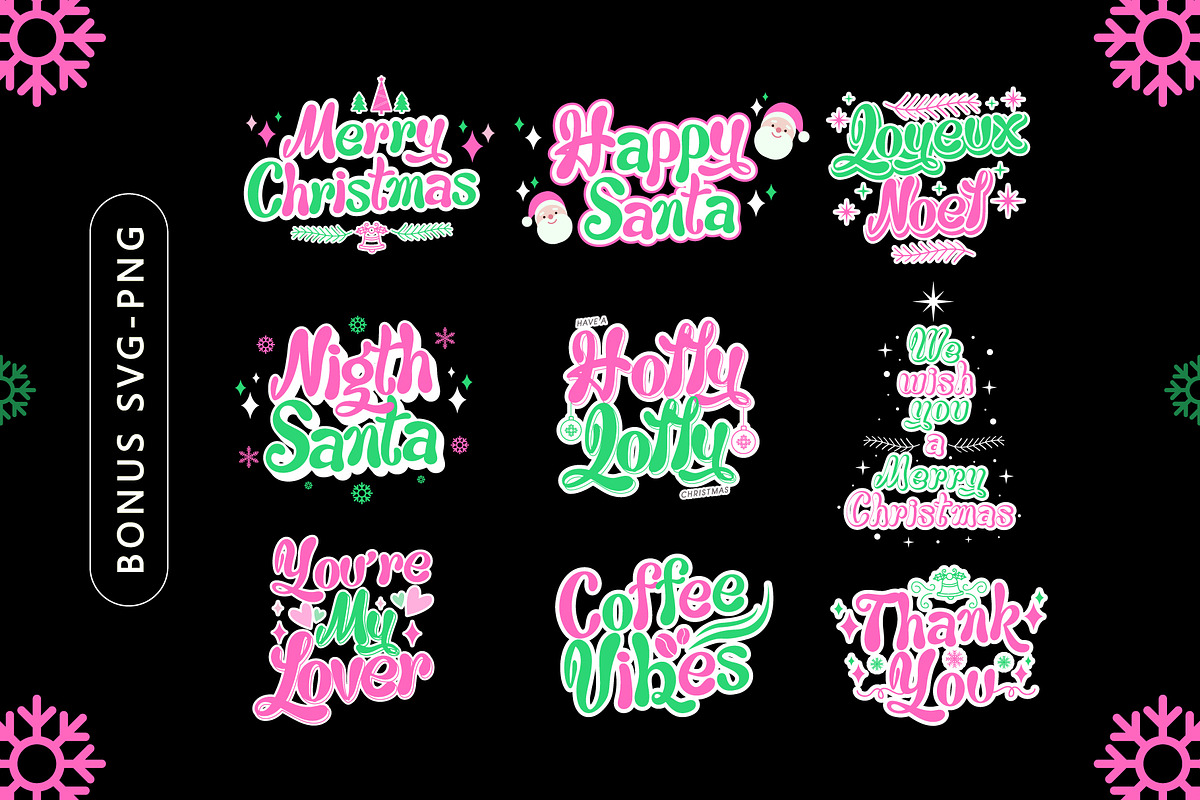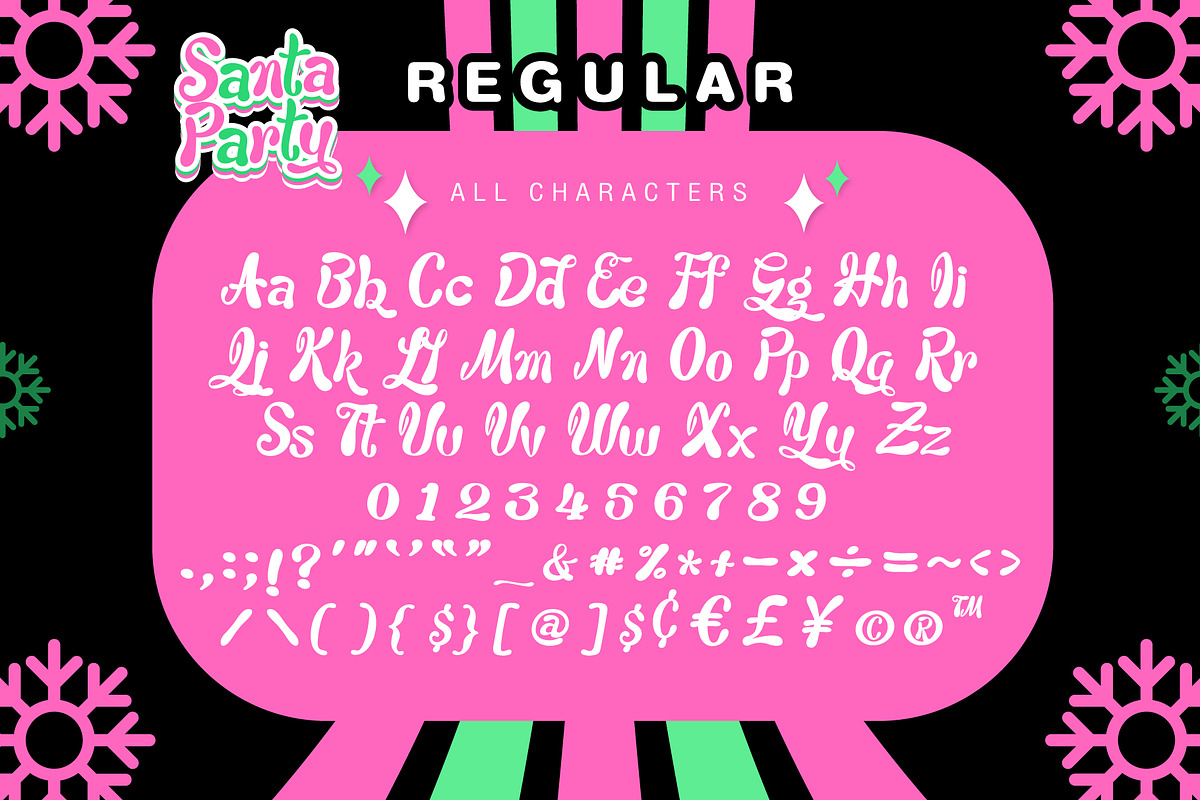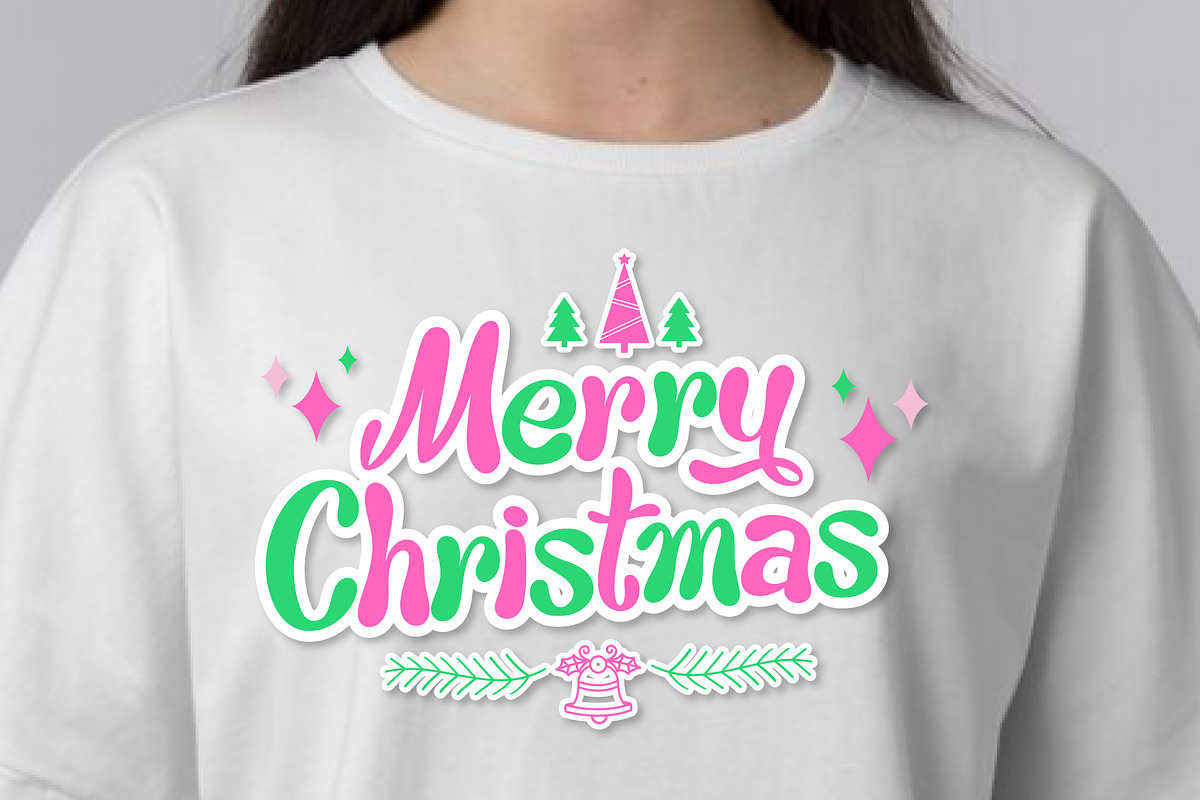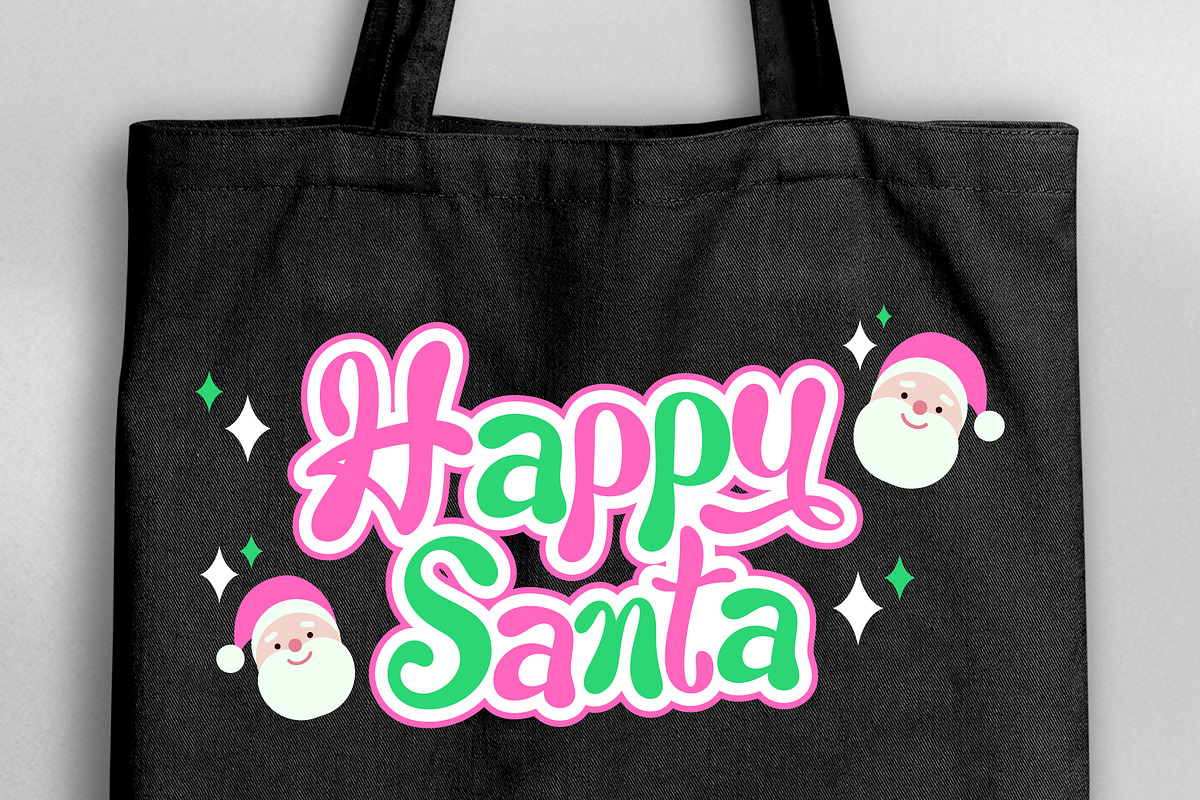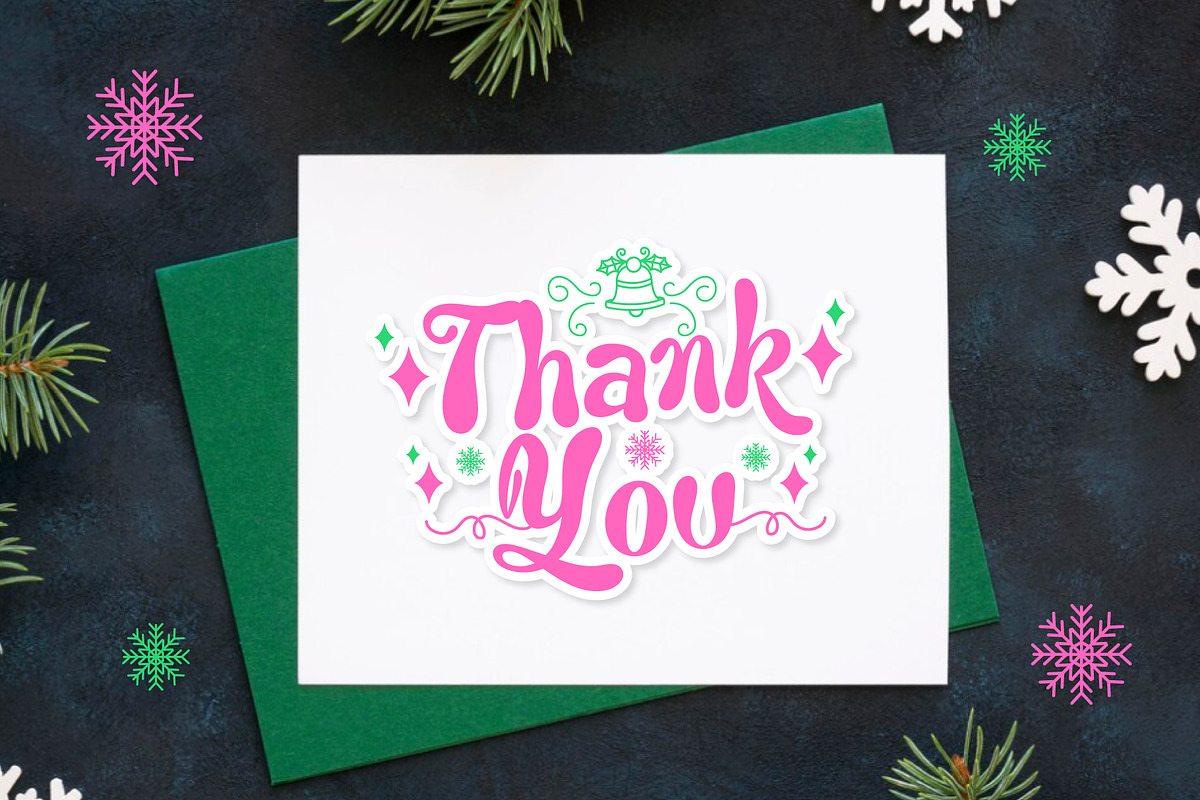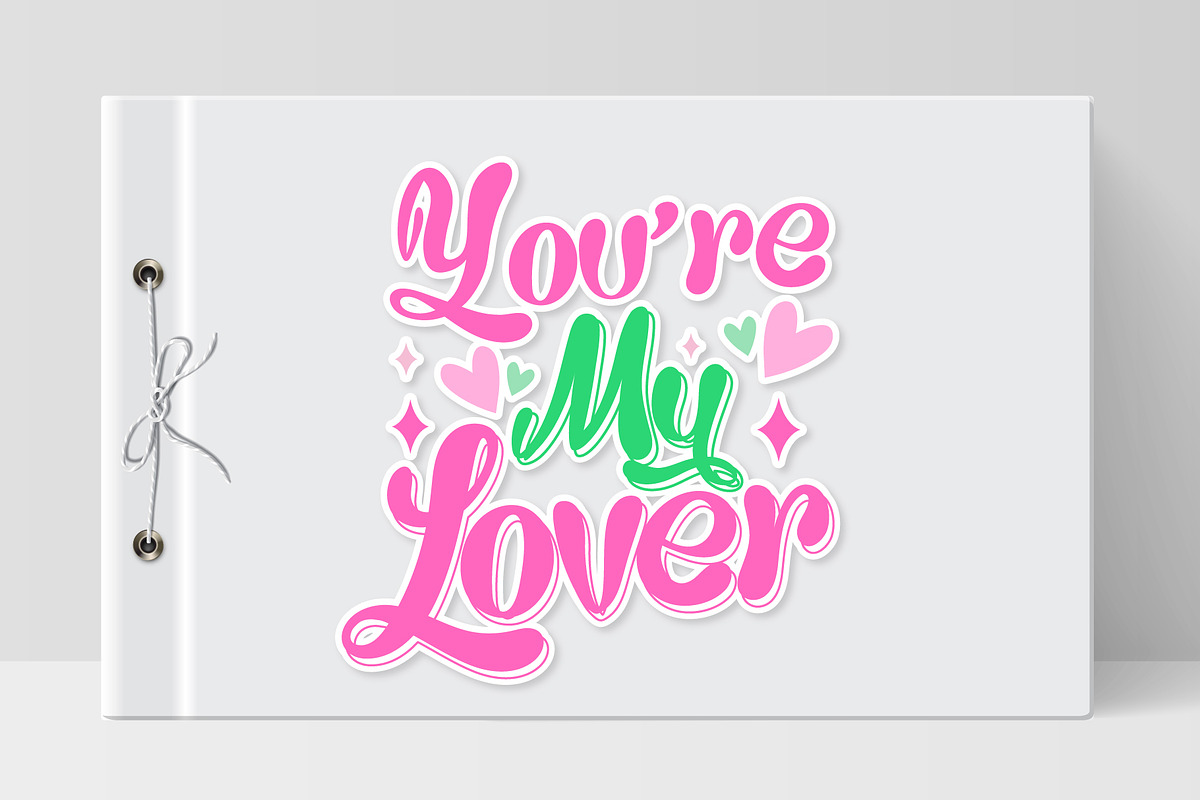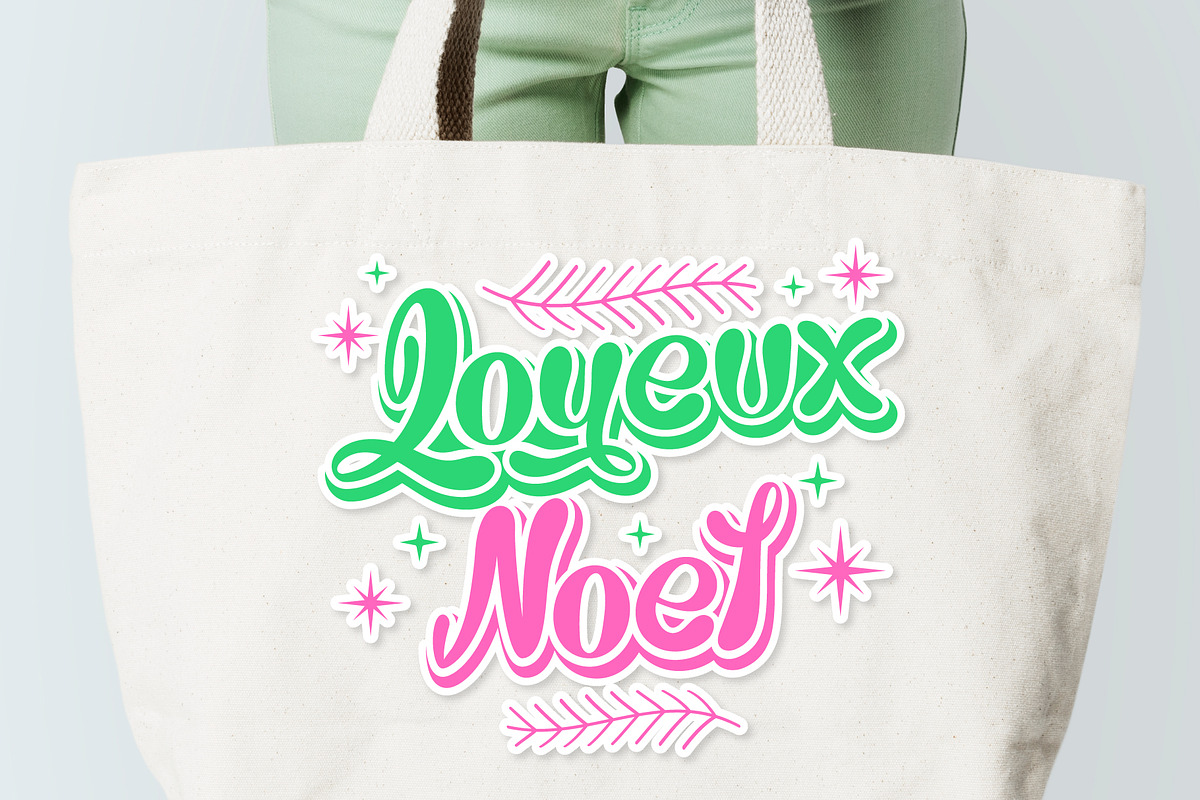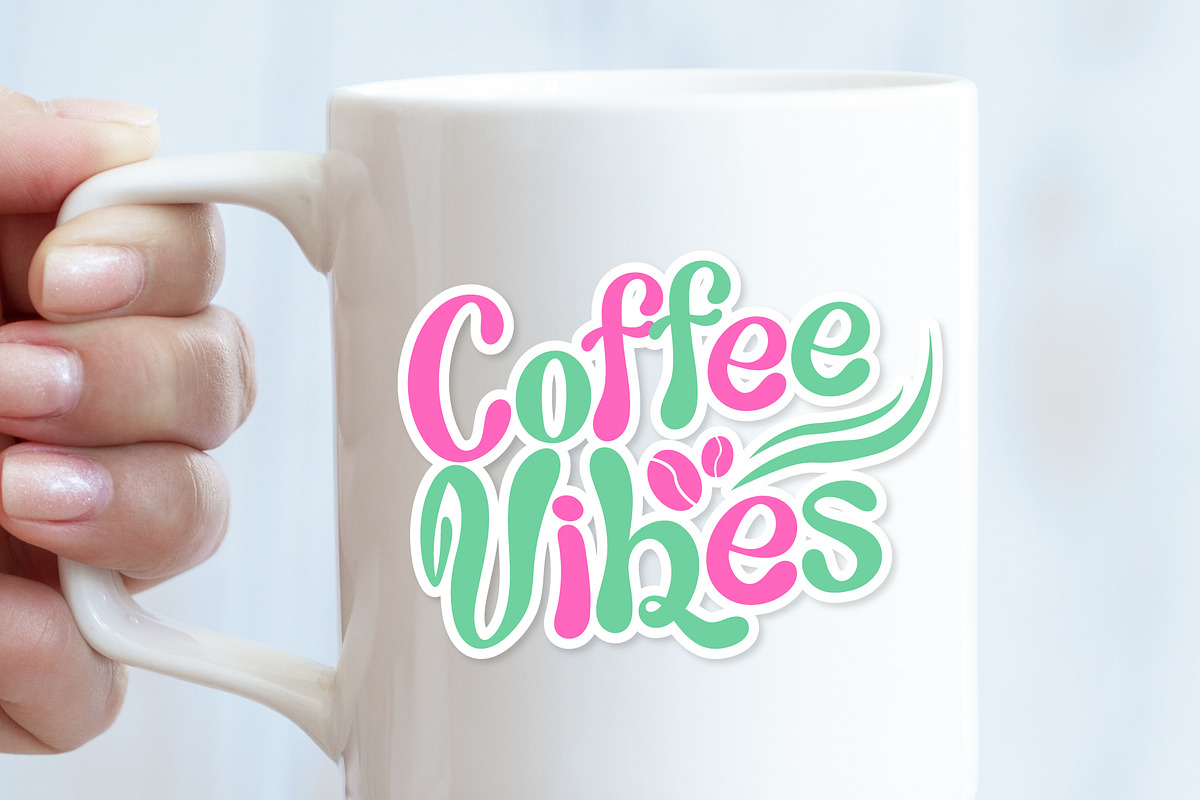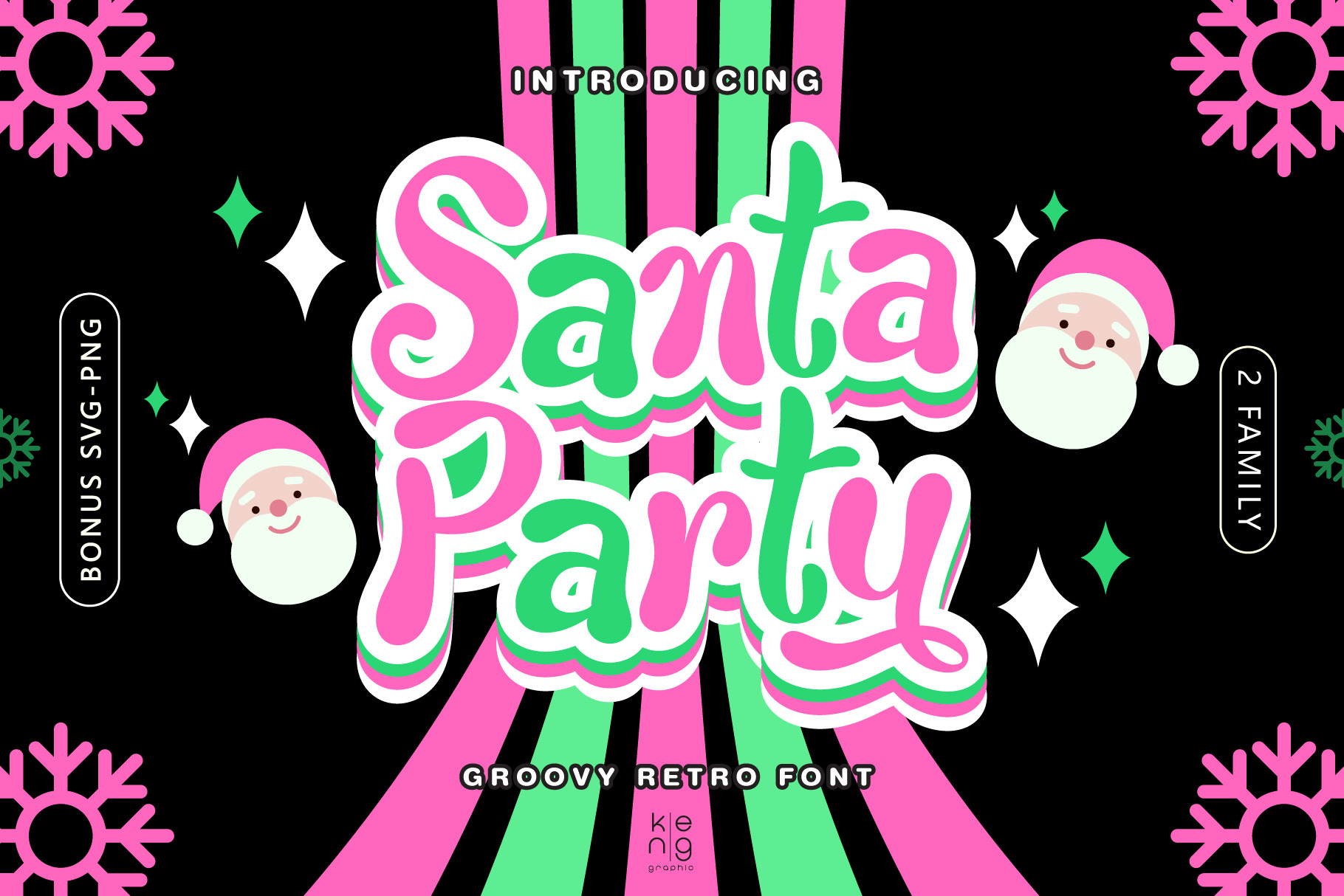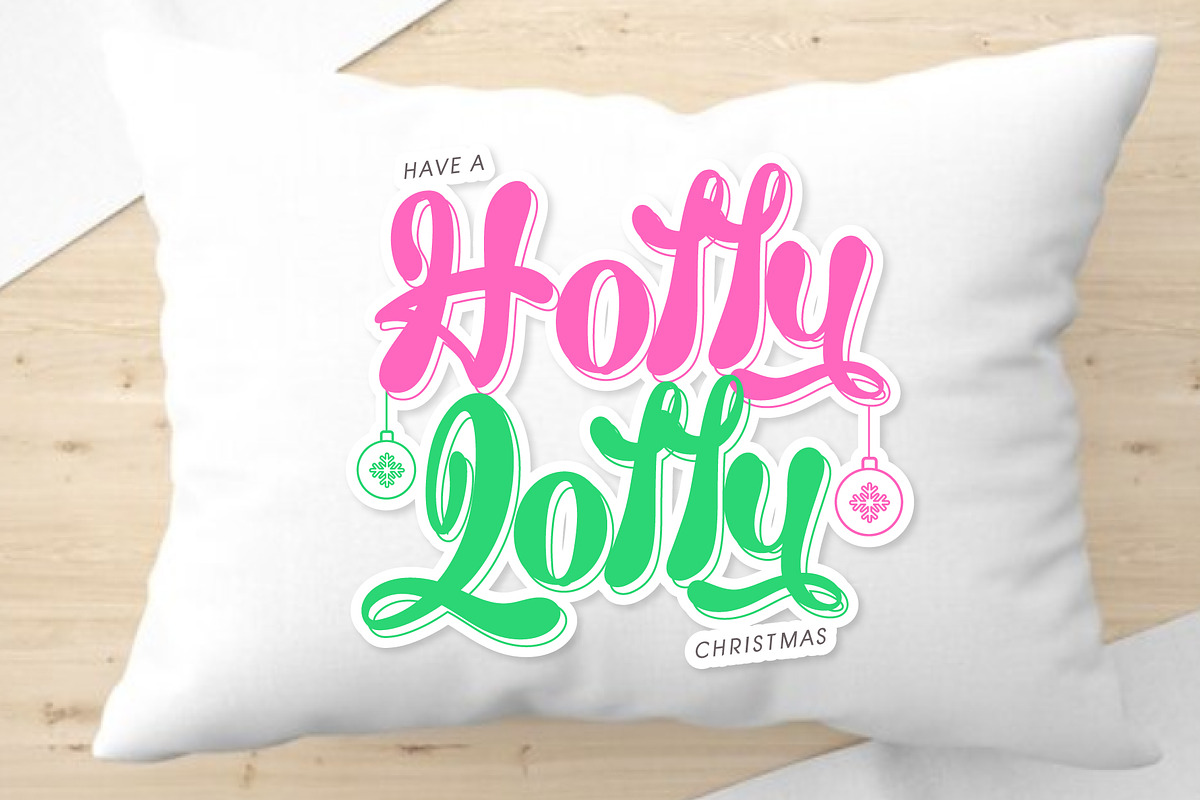
Santa Party Font
Santa Party is a cool display font with a retro style. Anything written in this font is instantly recognizable and will grab attention. It would work great for comic book layouts, online games, cards, shirts, hats, bags, mugs, pillows, posters, movie titles, eye-catching social media posts. Or anything that requires youth and courage.